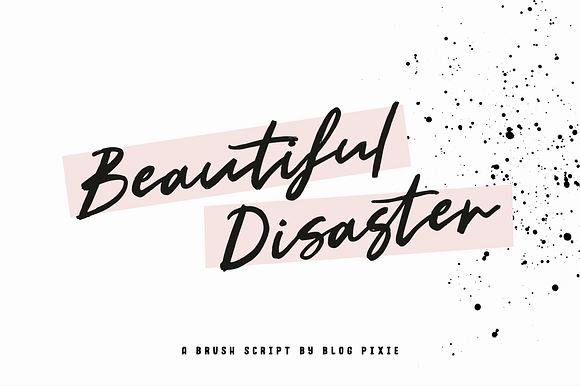
Beautiful Disaster Brush Script Font
Beautiful Disaster font is an artsy, creative brush script with bonus extras!
Achieve a hand-lettered style of writing in a paint brush effect easily, with a font that does all the work for you.
The Extras font includes a selection of clipart to use when typing from lowercase a to z.
Beautiful Disaster Brush Script Font by Design Pixie fits naturally into Branding, posters, packaging, typography.